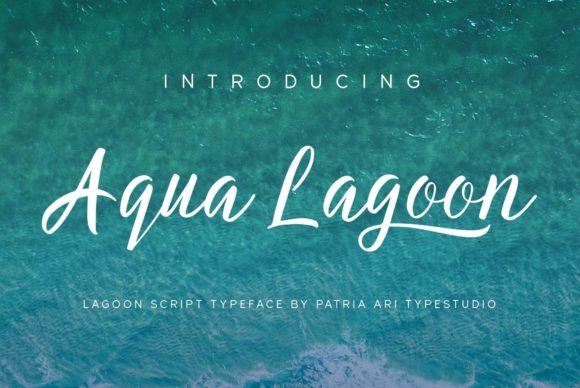
The Quest for the Perfect Handwritten Font: Discovering Aqua Lagoon
I still remember the time I was working on a wedding invitation project, and I just couldn’t find the right font to give it that personal touch. My client wanted something elegant, yet playful; something that would make their special day stand out. I scoured the internet, tried out countless fonts, but nothing seemed quite right. That was until I stumbled upon Aqua Lagoon, a delicate and well-rounded handwritten font that instantly captured the essence of the project. In this article, I’ll share my experience with Aqua Lagoon, and how it can elevate your crafty projects, from wedding invitations to personal branding.
A Personal Review of Aqua Lagoon
What I Love About Aqua Lagoon ✨
- ✅ Delicate and elegant strokes that add a touch of sophistication to any design
- ✅ Well-rounded and consistent letterforms that create a harmonious flow
- ✅ Perfect for a wide range of creative projects, from wedding invitations to personal branding
- ⚠️ Limited availability of stylistic alternates, which might limit design variations
- ⚠️ May not be the best fit for bold or large-scale designs, as it can lose its delicate charm
The Story Behind Aqua Lagoon
Aqua Lagoon was designed by a talented typographer who wanted to create a font that captured the essence of a serene, tropical paradise. Inspired by the crystal-clear waters and lush greenery of a lagoon, the designer crafted a font that exudes elegance and tranquility. With its delicate strokes and well-rounded letterforms, Aqua Lagoon is the perfect choice for designers and crafters looking for a unique and authentic typography.
A: Aqua Lagoon is versatile and can be used in a variety of projects, from wedding invitations to personal branding. Experiment with different font sizes, colors, and OpenType features to find the perfect fit.
A: Currently, Aqua Lagoon is available in a single font weight. However, you can experiment with different font sizes and styles to achieve the desired effect.